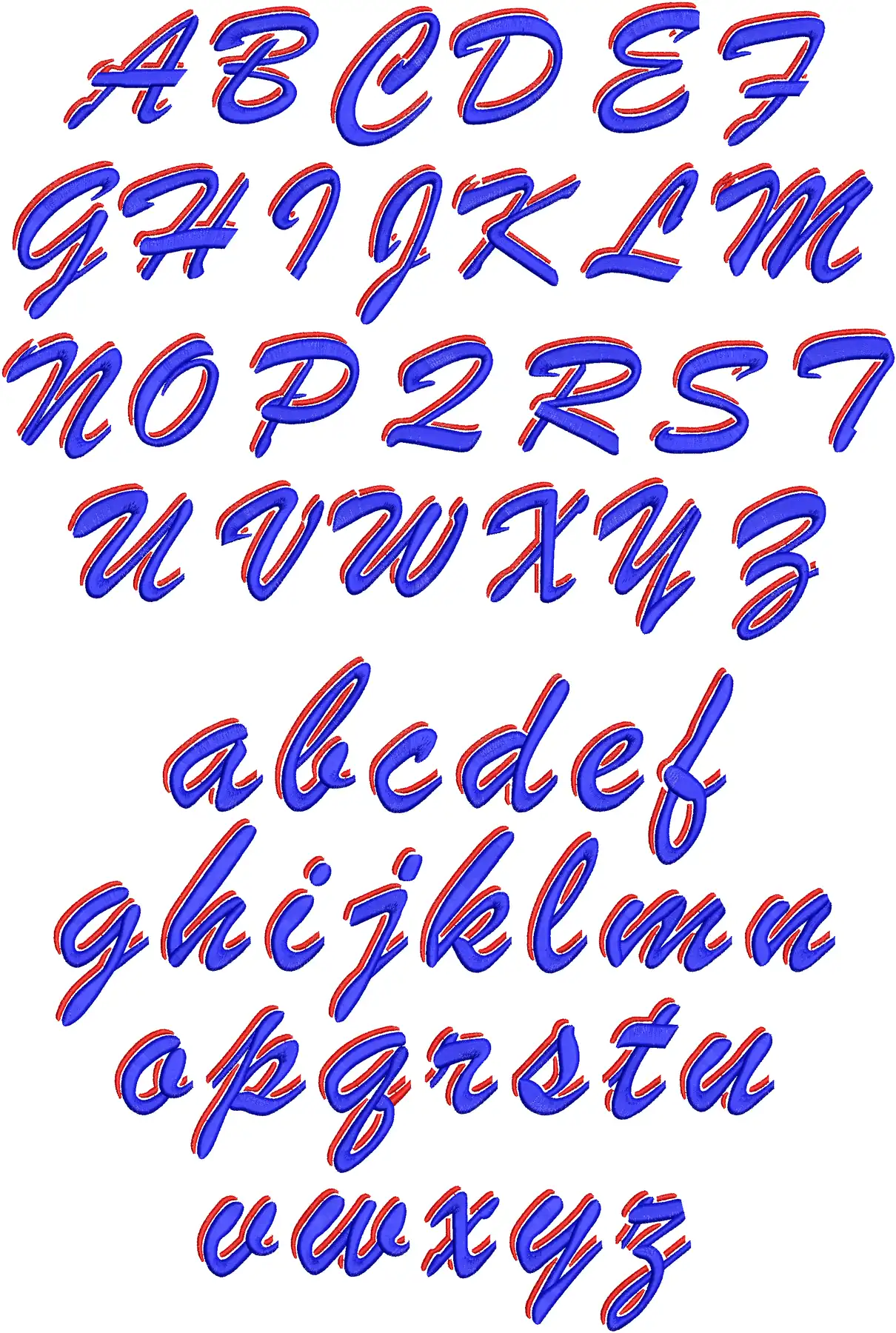
Mya Script Shadow Embroidery Font
Create elegant personalized names with Mya Script Shadow two color font set. This cool cursive script embroidery set is perfect for customizing hats, linens, towels, baby gifts, tote bags, and more. Included All Letters A-Z Upper and Lowercase.
Mya Script Shadow Stacked 2-Color Script embroidery font collection includes complete size sets with cursive script letters designed for creating stunning personalized names. Each font comes professionally digitized for smooth stitching and excellent embroidery results.
- 2-Color Mya Script Shadow Script Font